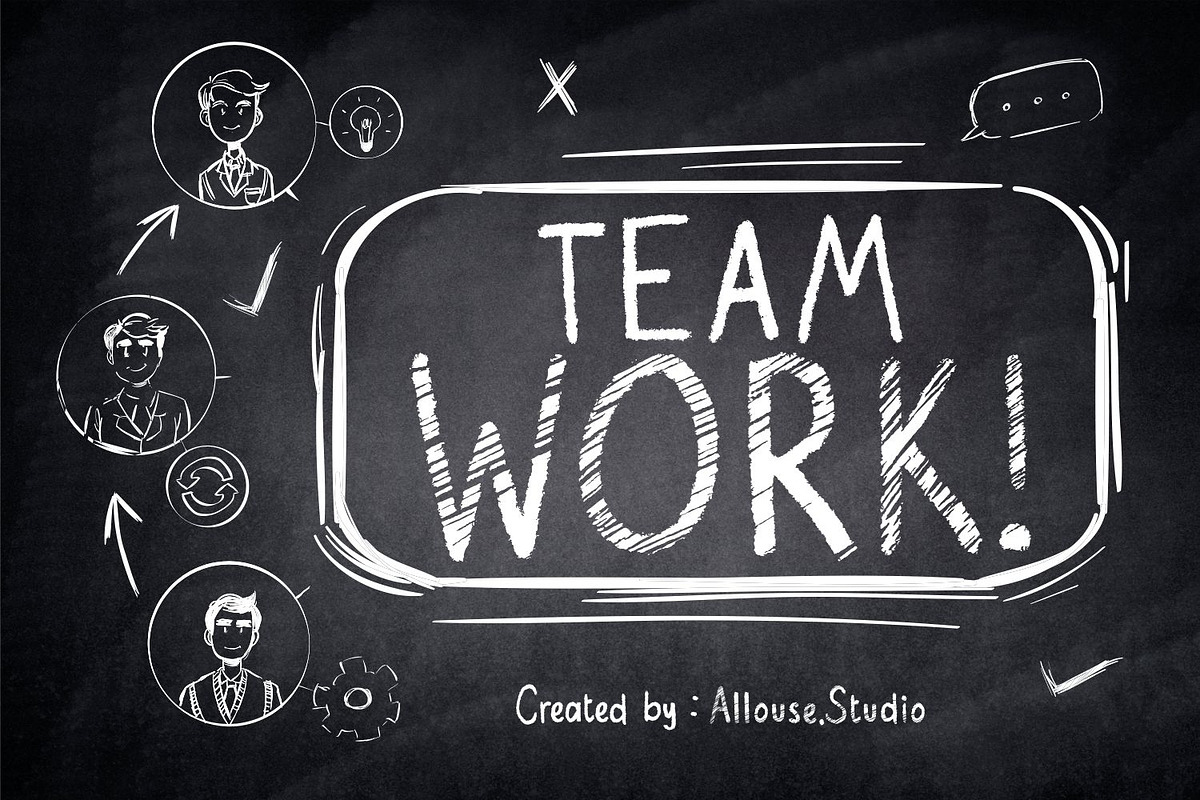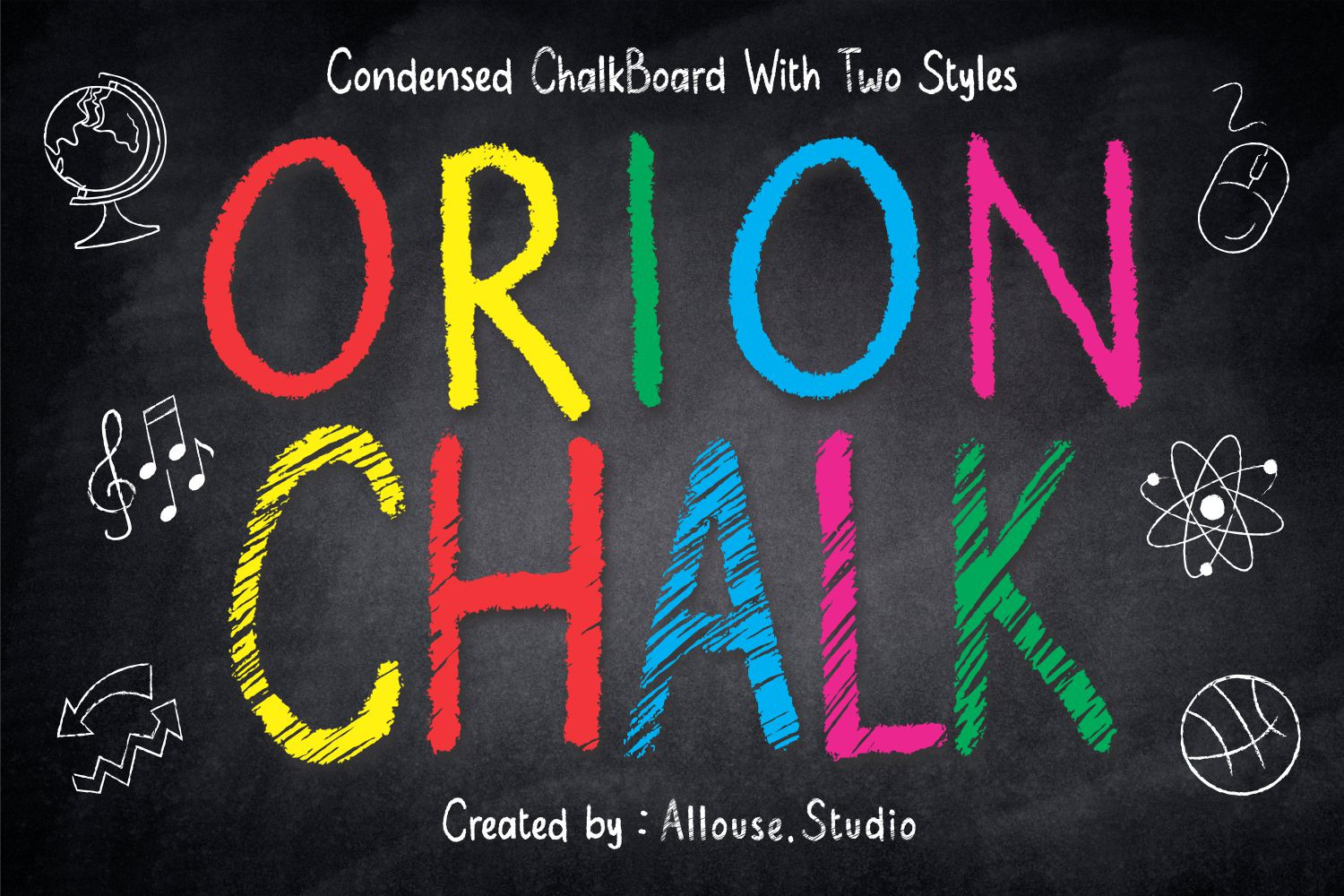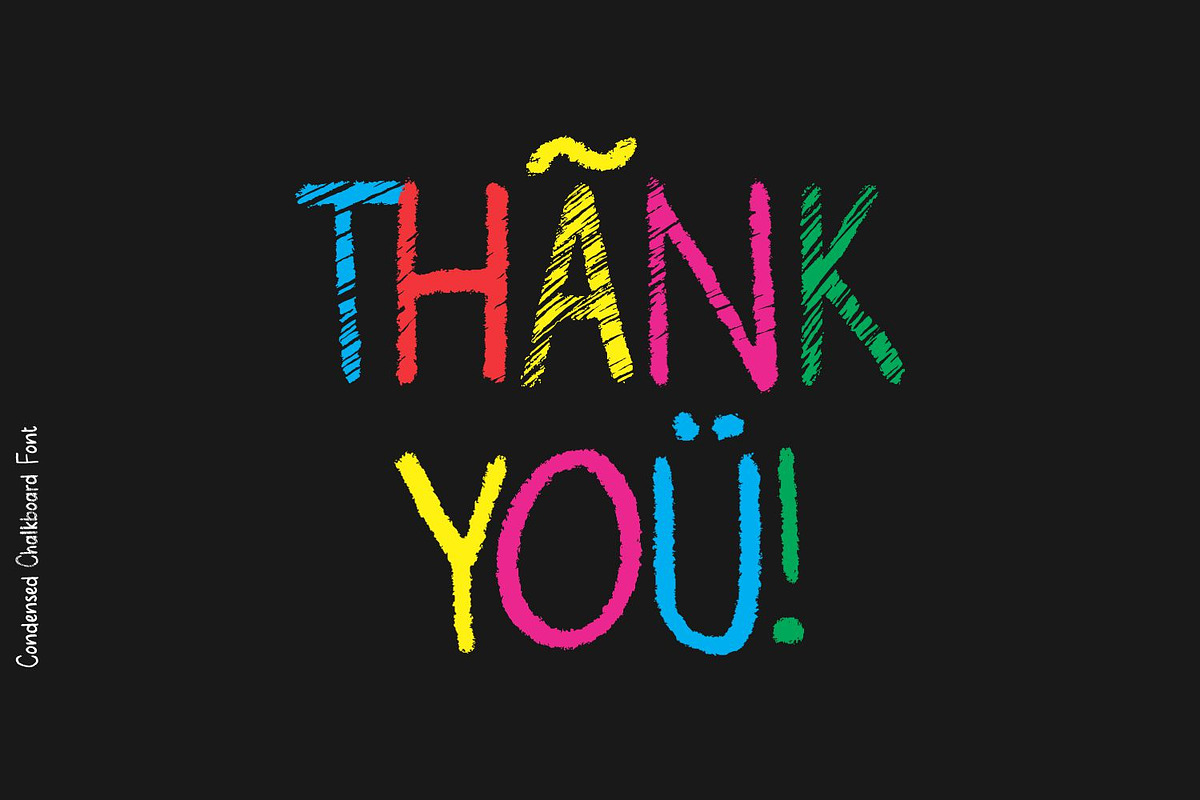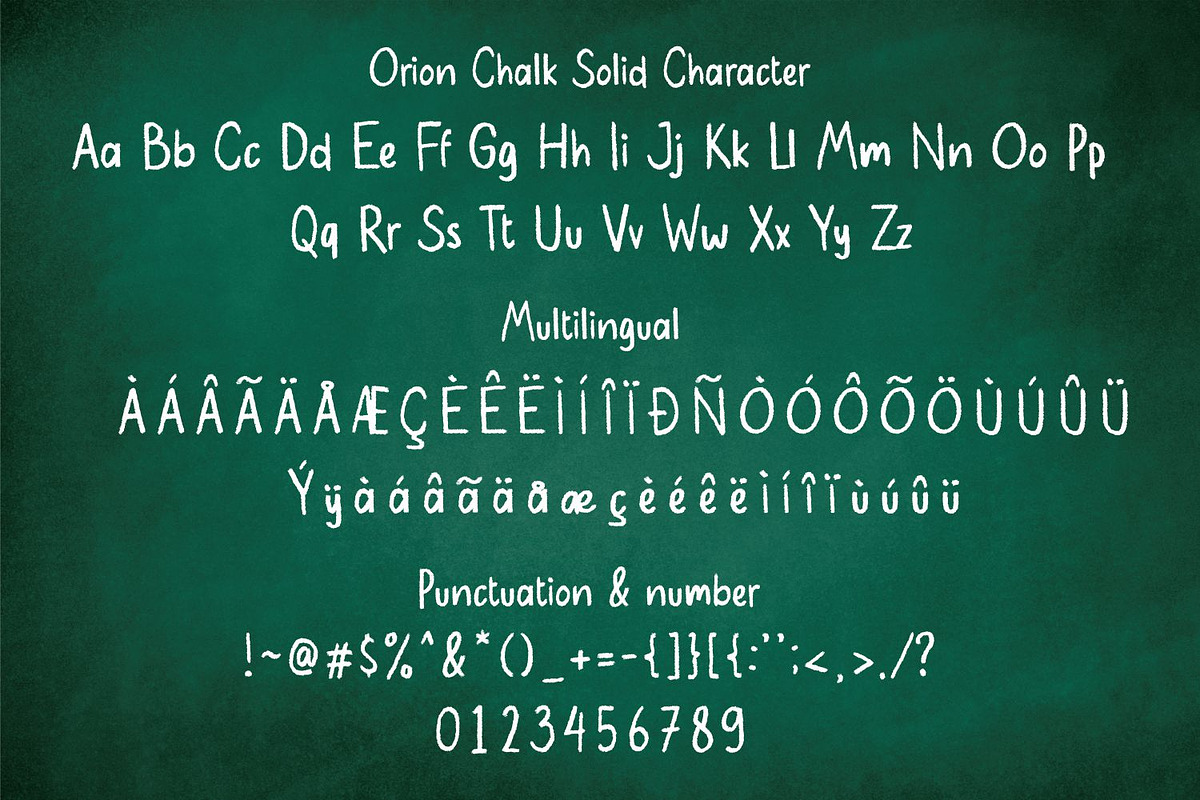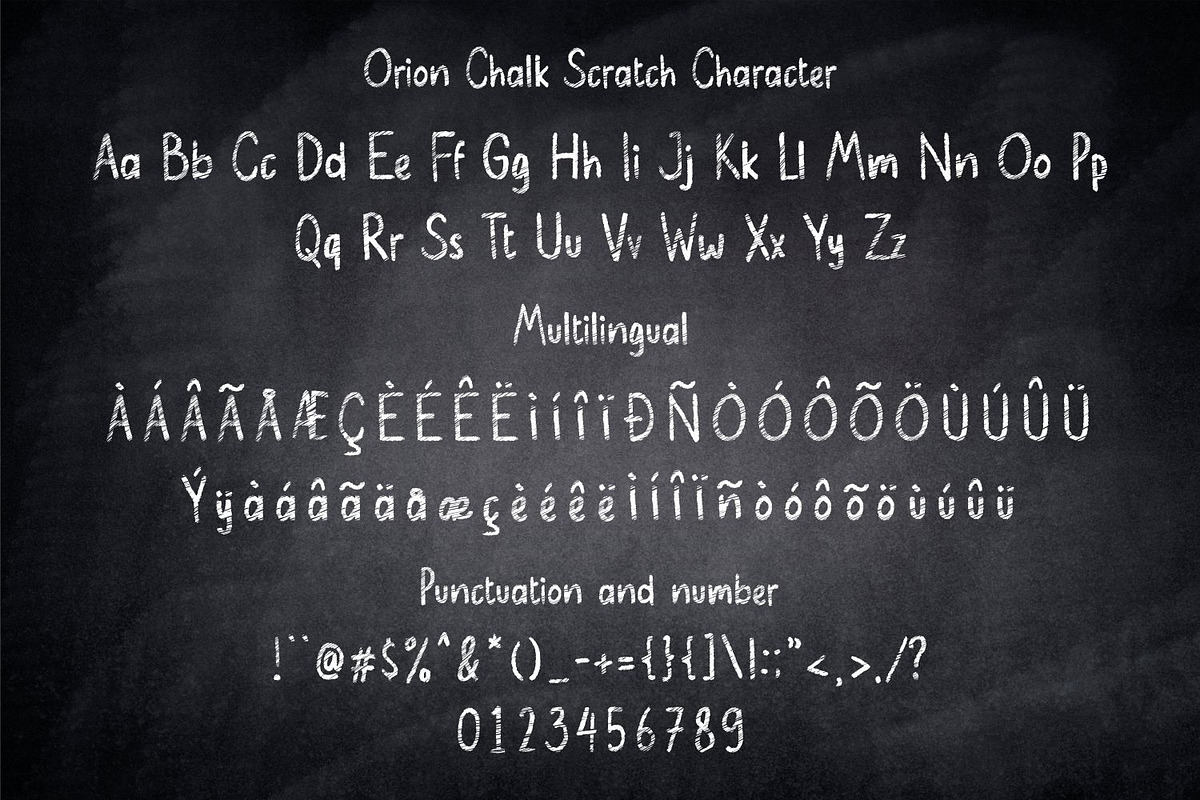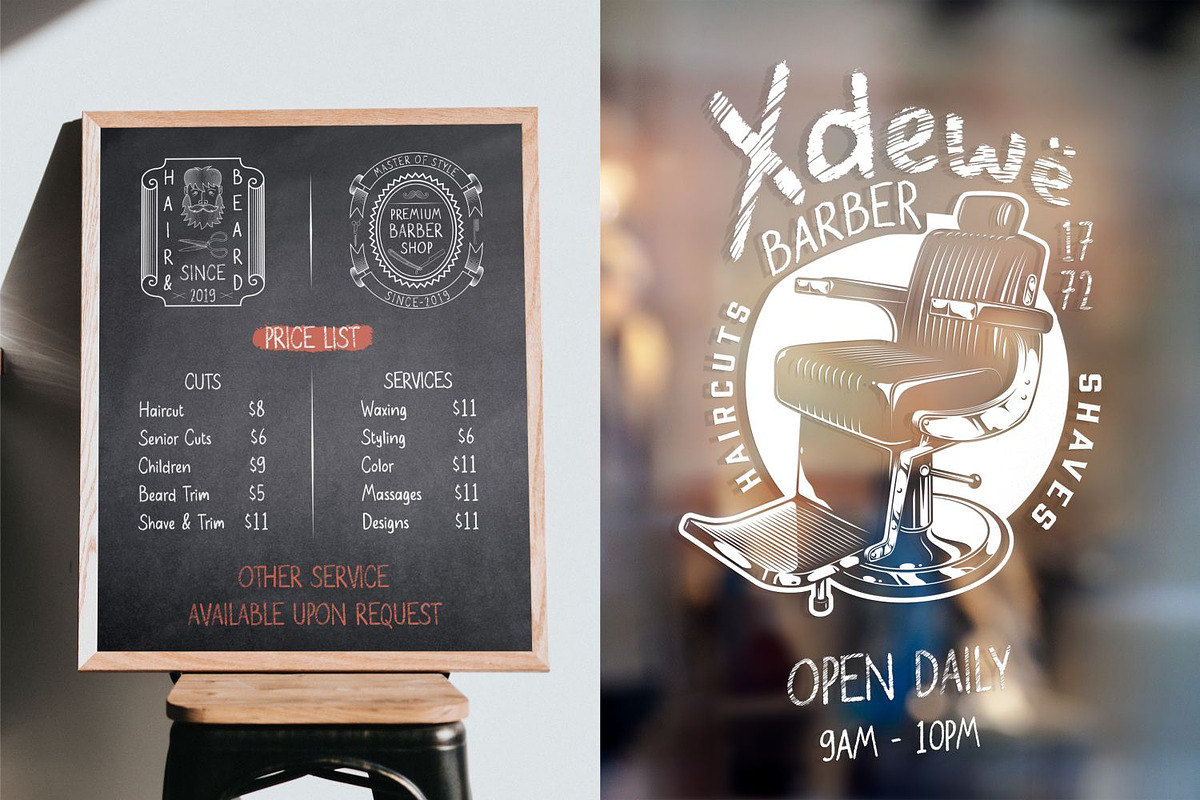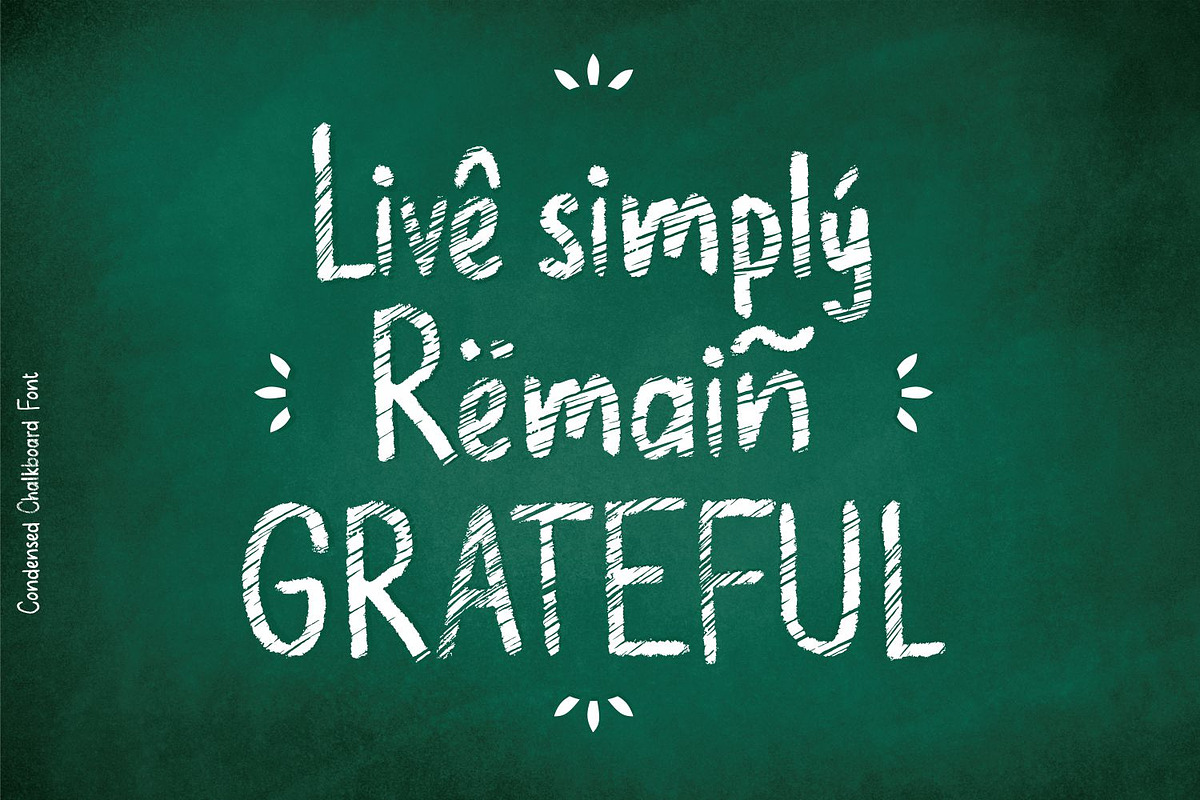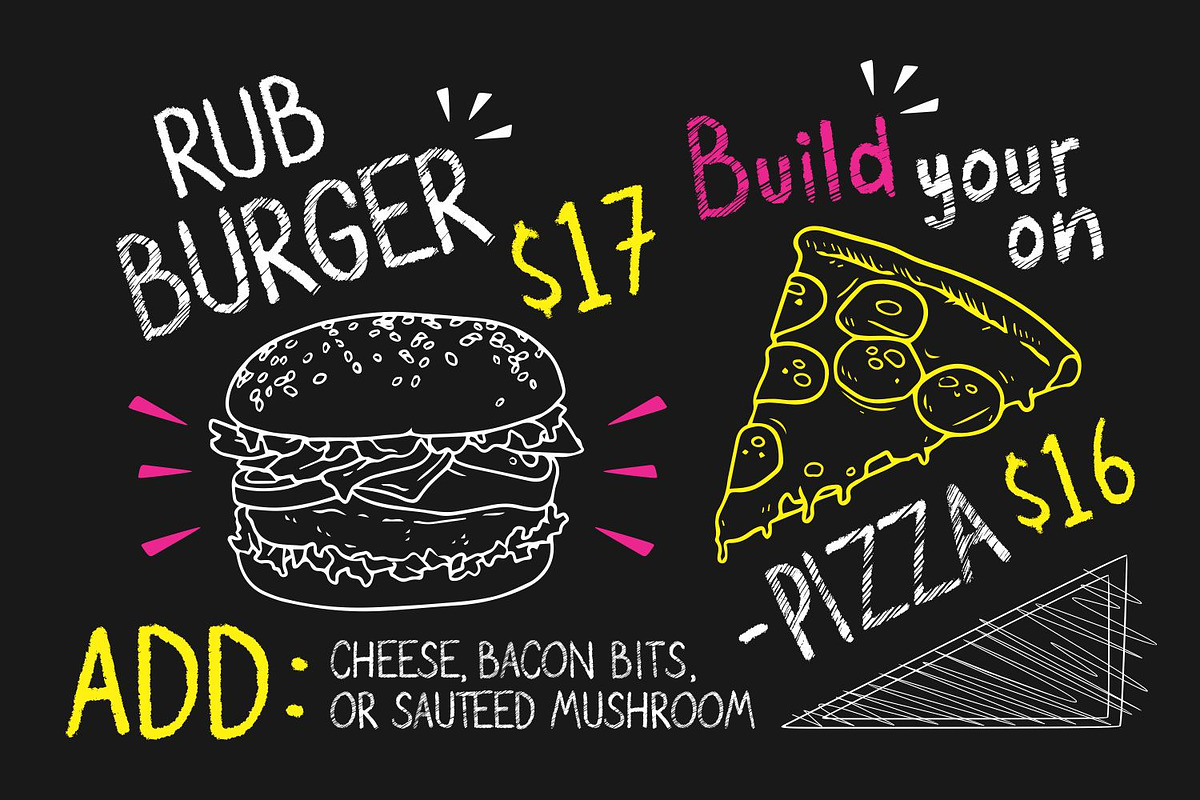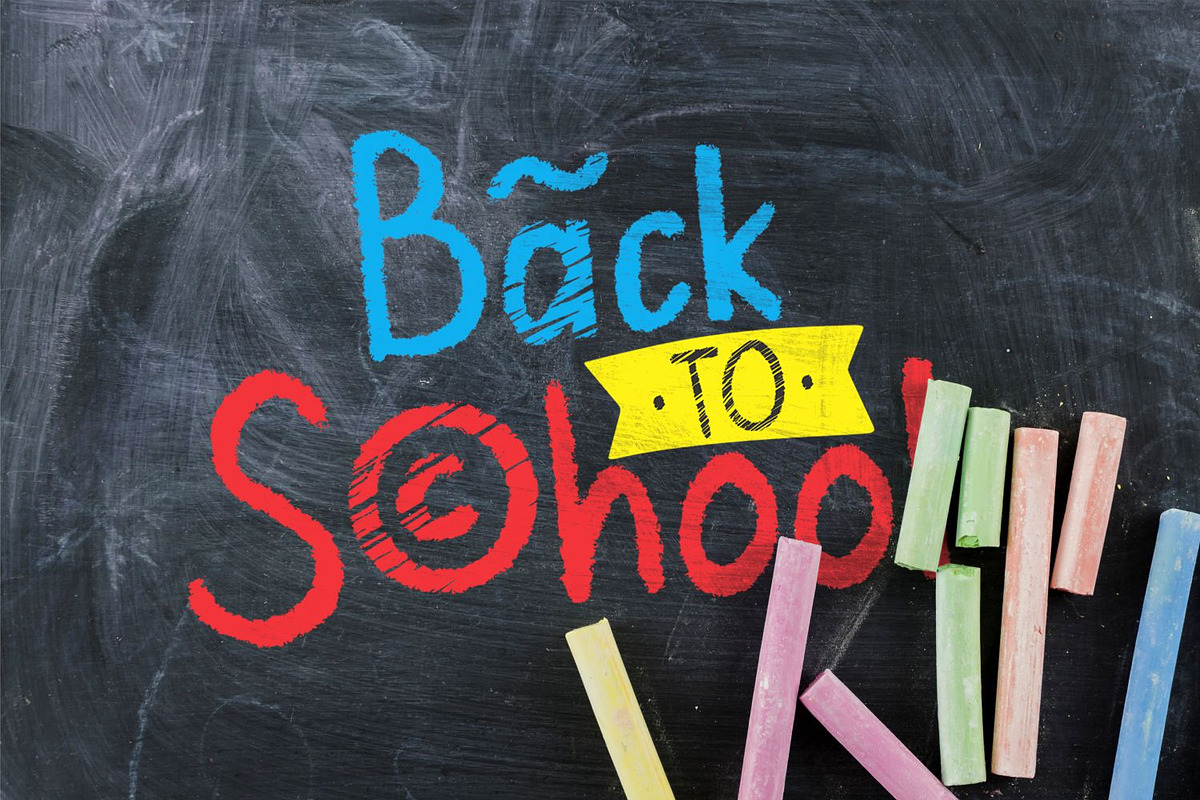
Orion Chalk Font
Introducing by Allouse.Studio
Proudly Present, Orion Chalk, with Two Styles Solid & Scratch.
Orion Chalk is a Condensed Chalkboard Font.
Orion Chalk is perfect for product packaging, branding project, megazine, social media, wedding, or just used to express words above the background.